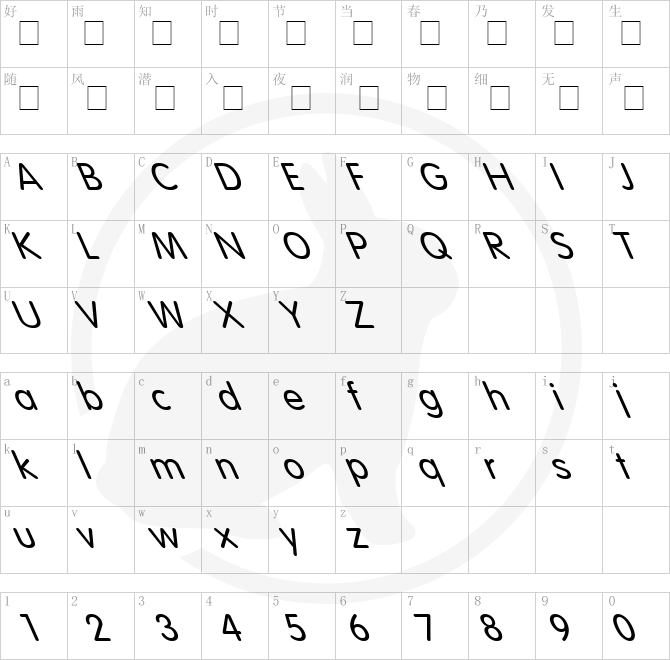
- Font Name:VAGRounded-Light Lefti
- Full Name:VAGRounded Light Lefti
VAGRounded-Light-Lefti.ttf is a very beautiful artistic font, VAGRounded-Light-Lefti.ttf is widely used in the design and printing of various books and pictures,VAGRounded-Light-Lefti.ttf has a strong visual impact,VAGRounded-Light-Lefti.ttf is a commonly used font in newspapers, magazines and books, and is used in posters, e-commerce Poster design, store design, logo design, font design and other fields.VAGRounded-Light-Lefti.